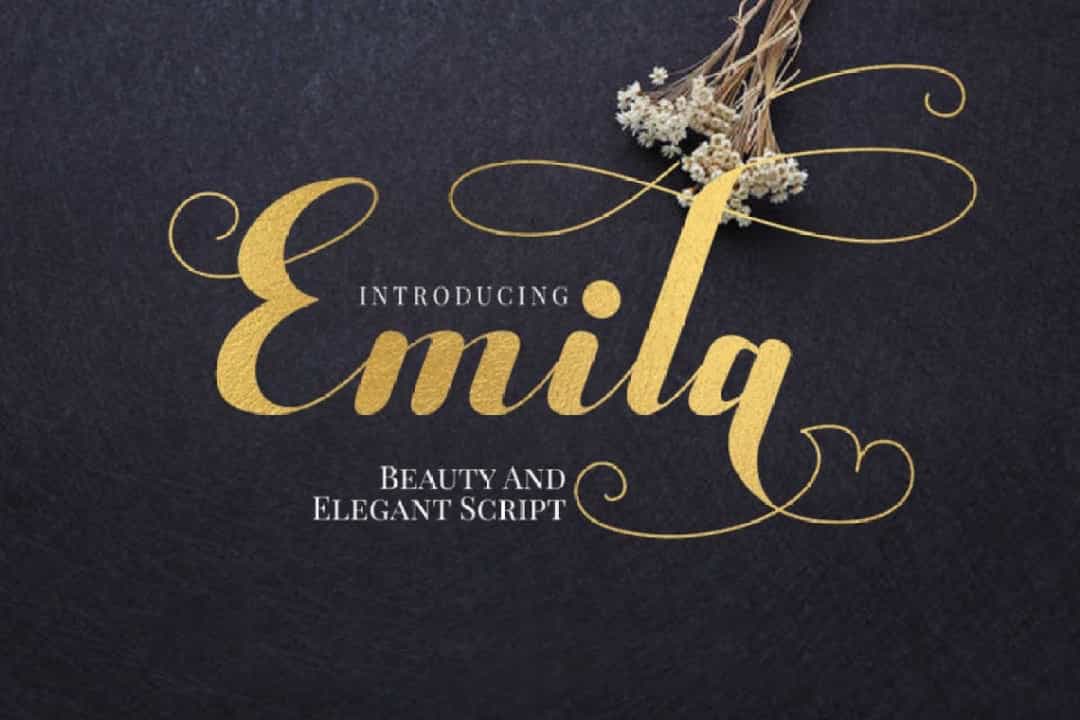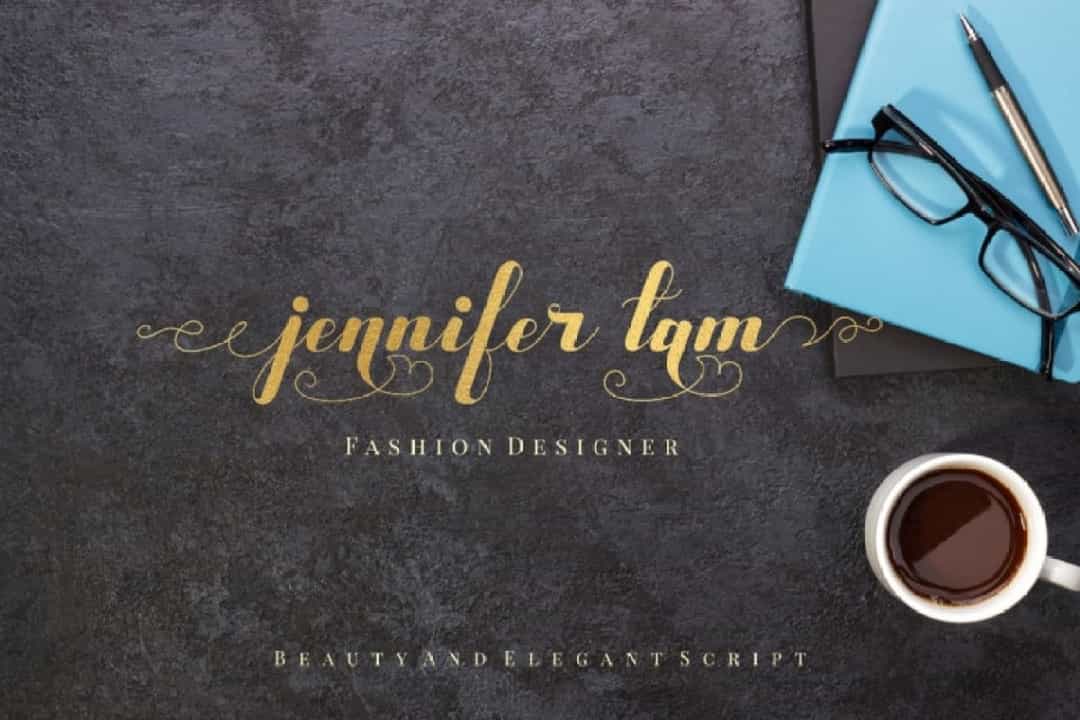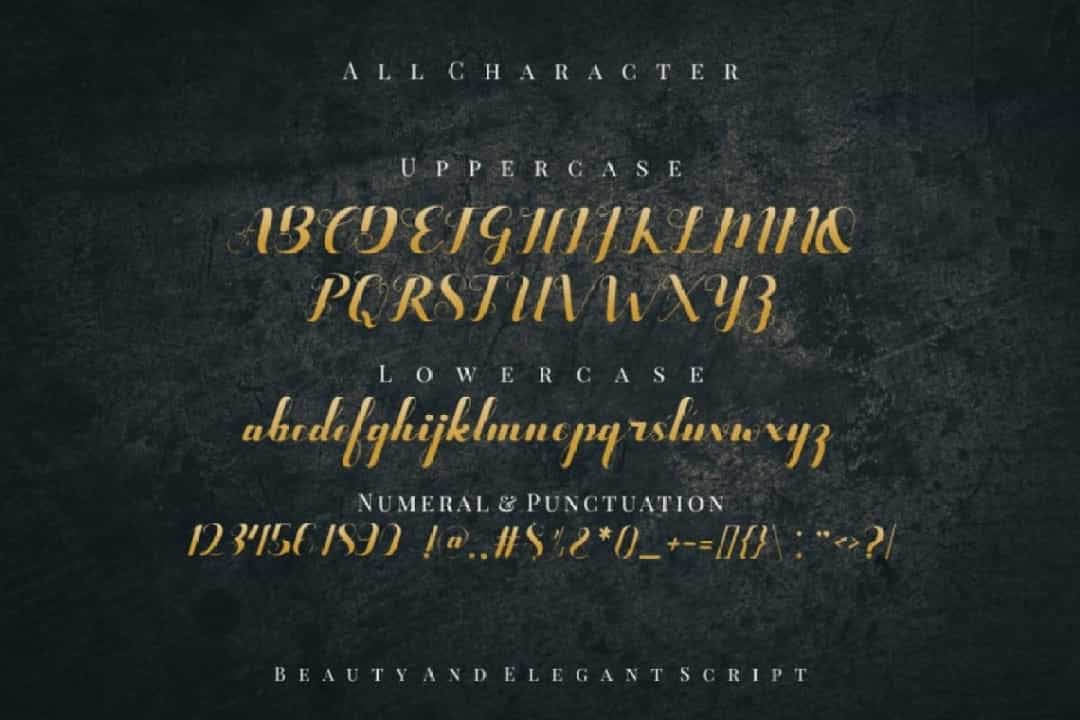
Emila is a fancy fluid script font with an elegant touch for any of your projects. Therefore, fall in love with the timeless and unique design and make masterpieces using it! The PUA encoded font of Emila allows the user to have full access to the whole library of characters of the font. Appreciate its different baseline and the clean design with lovely glyphs and fashionable alternatives.